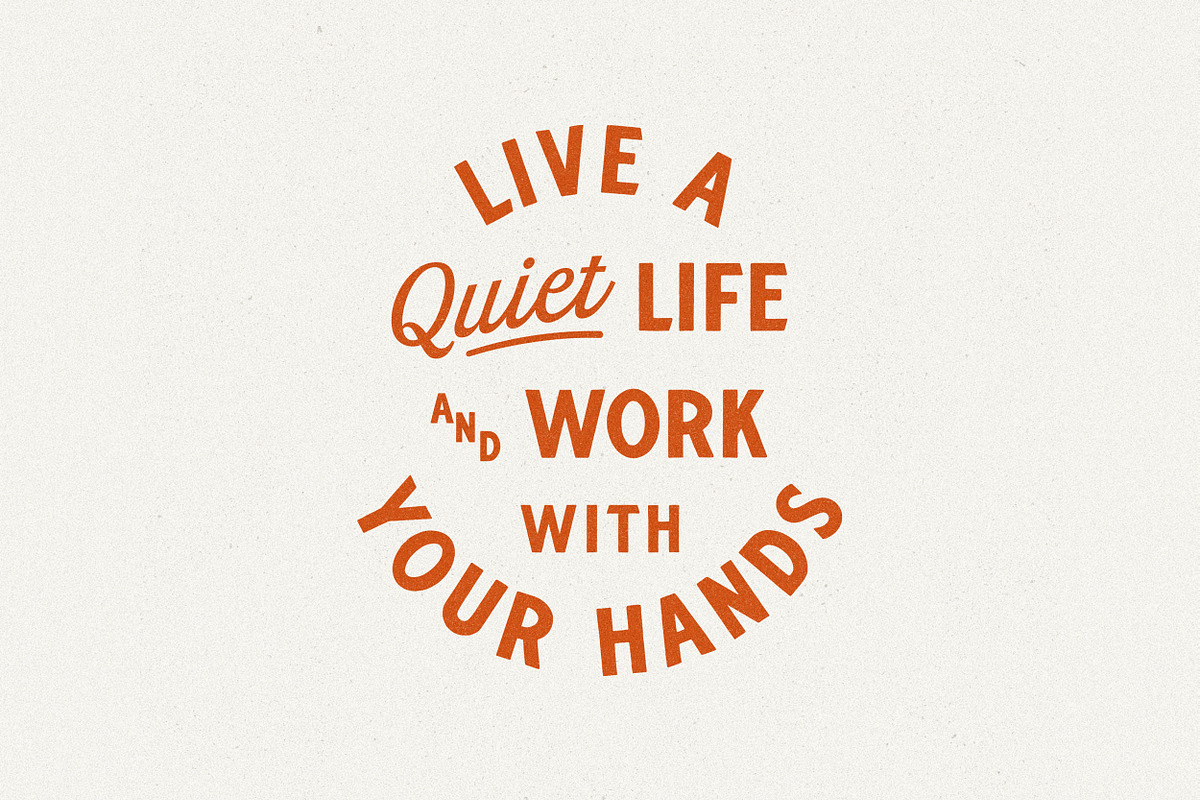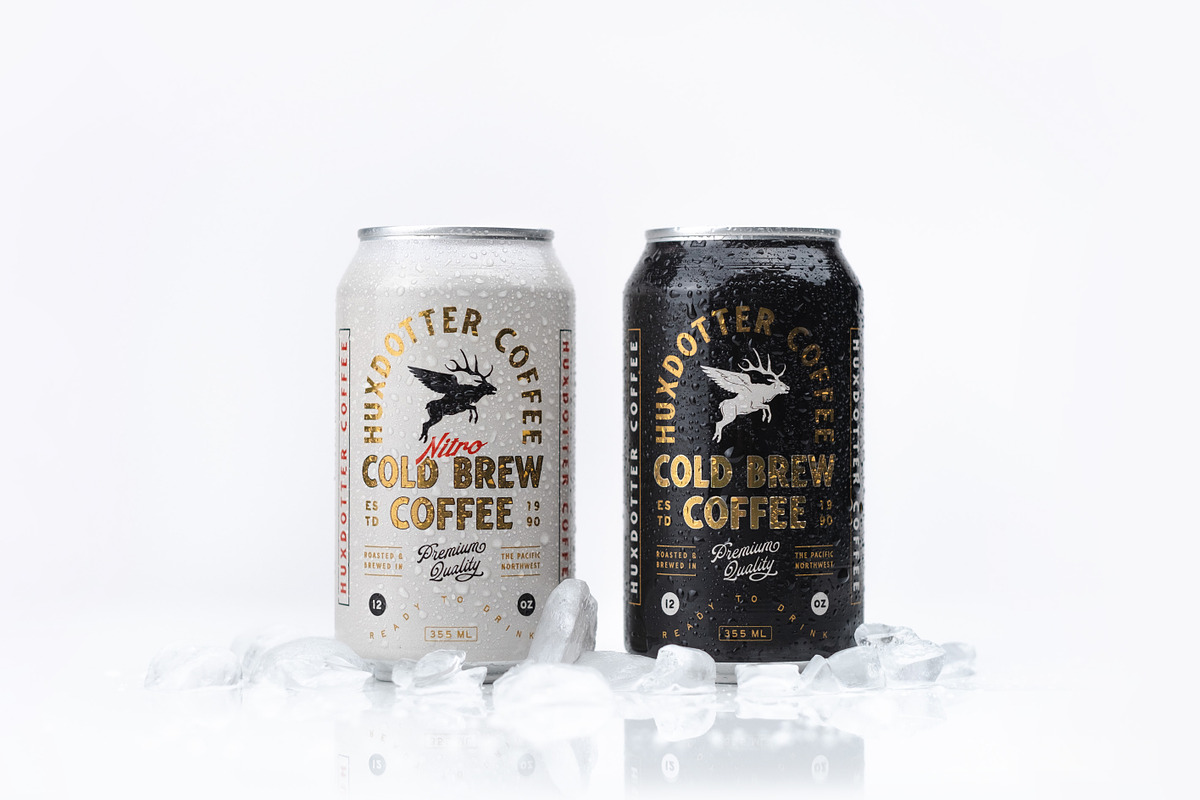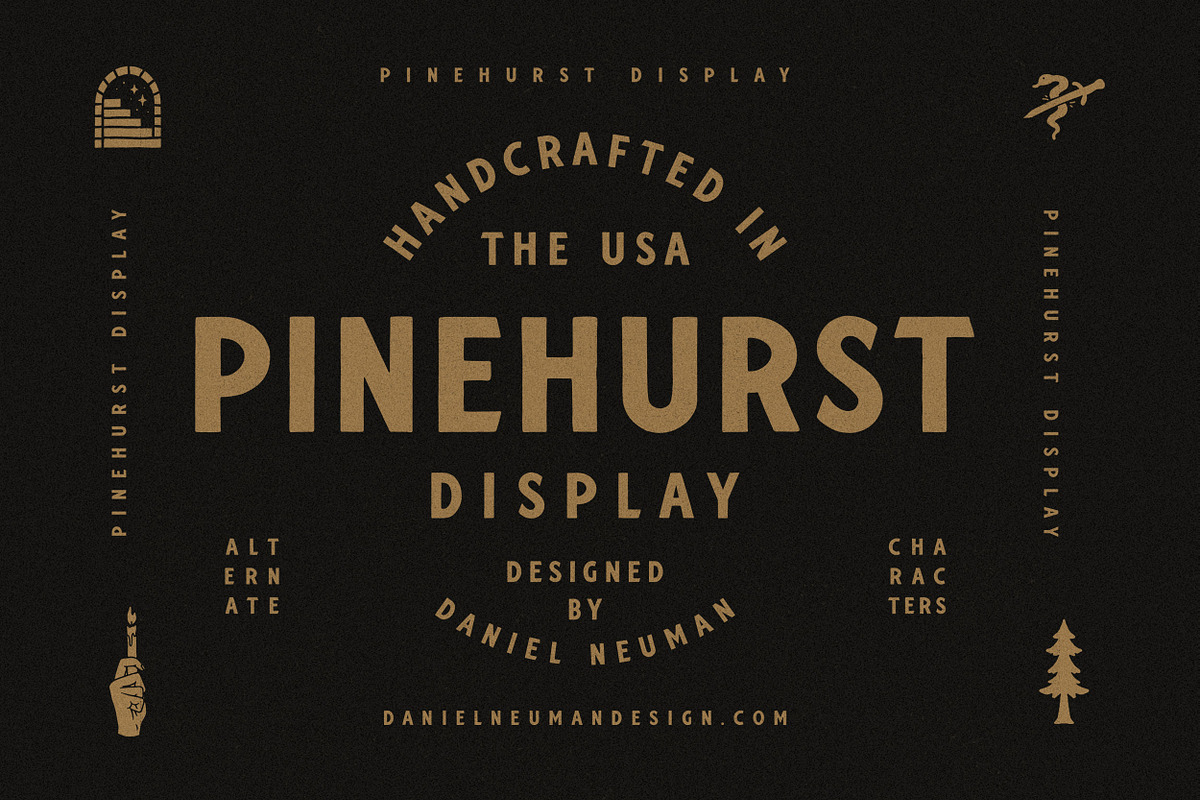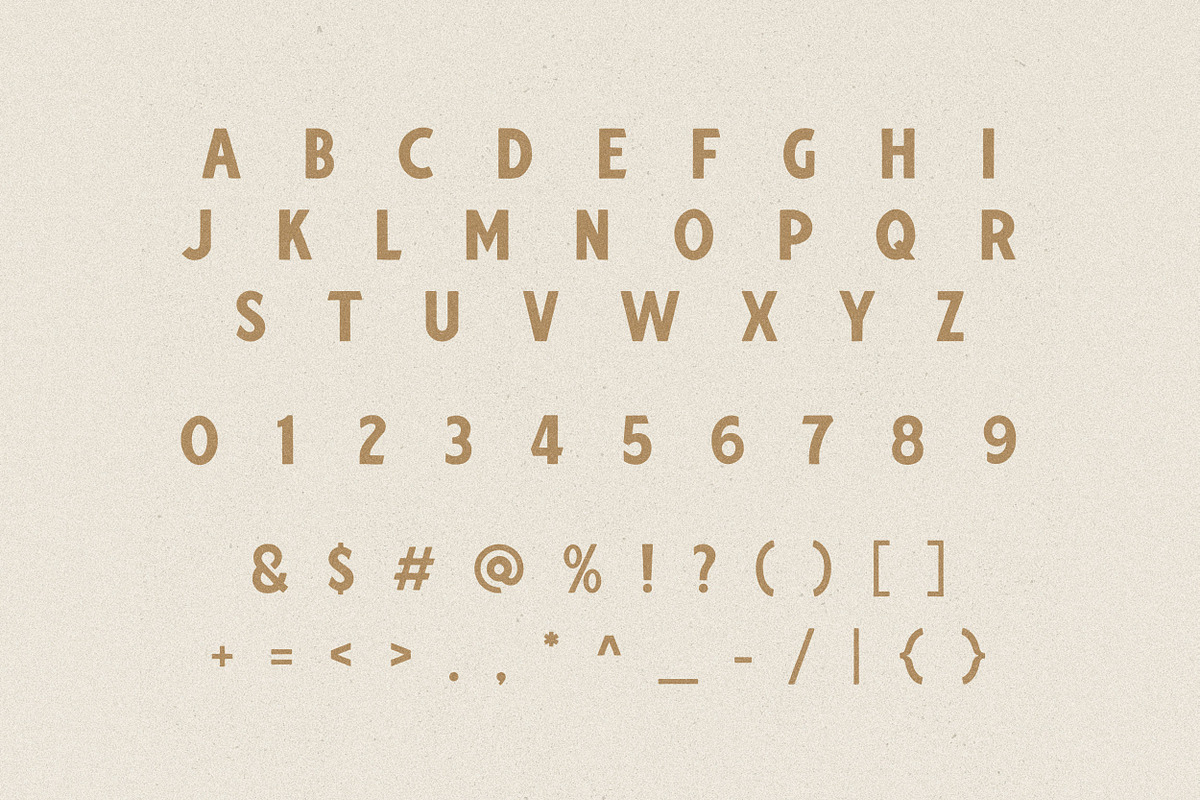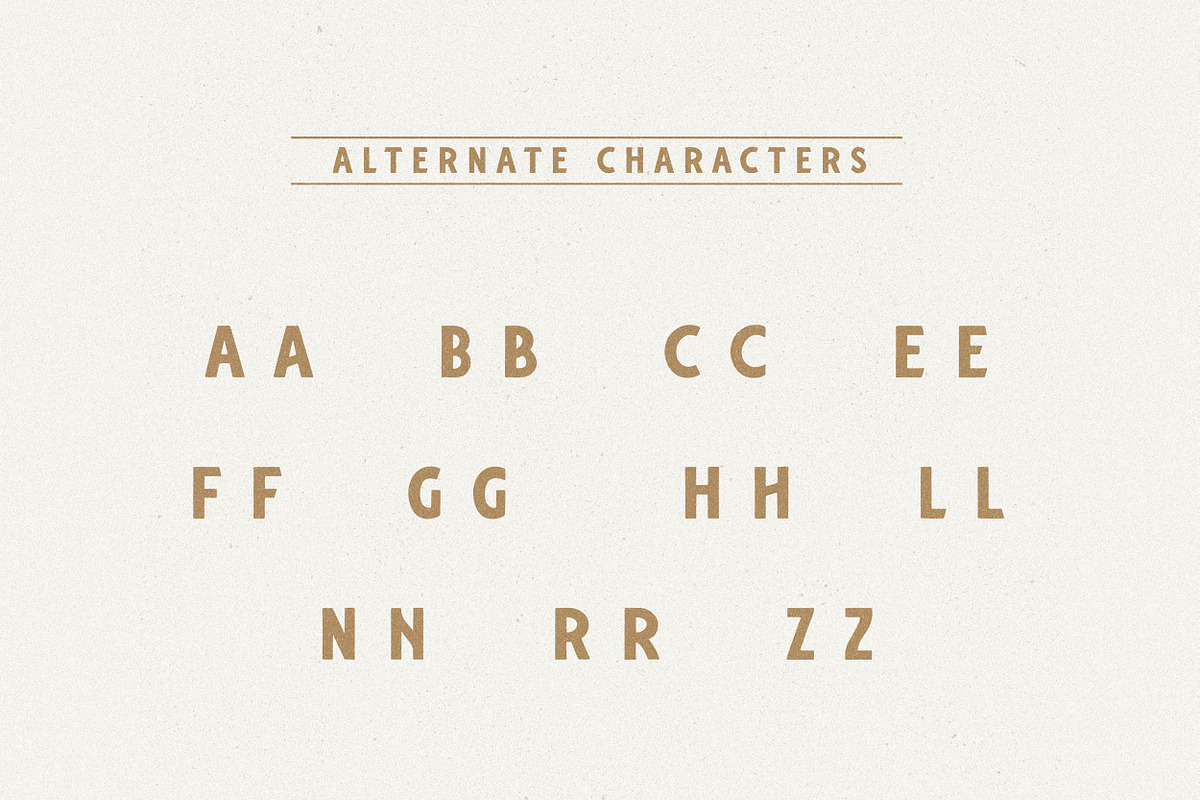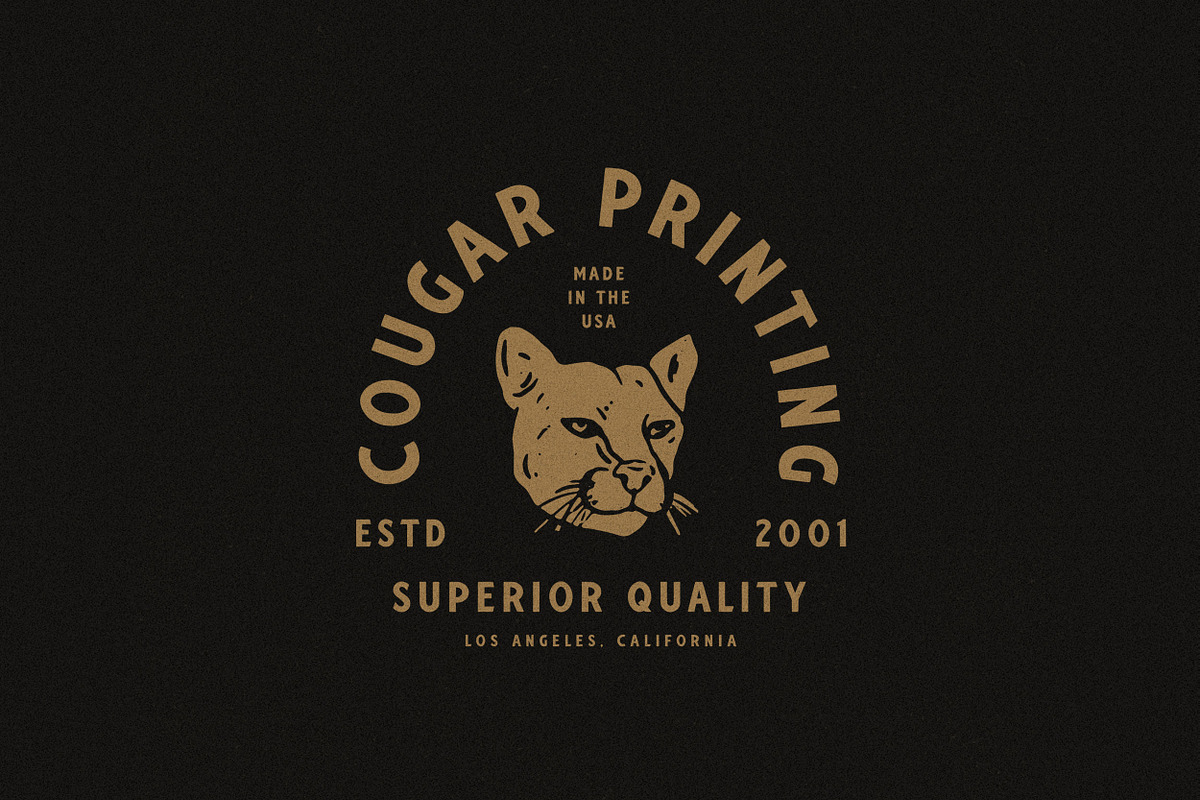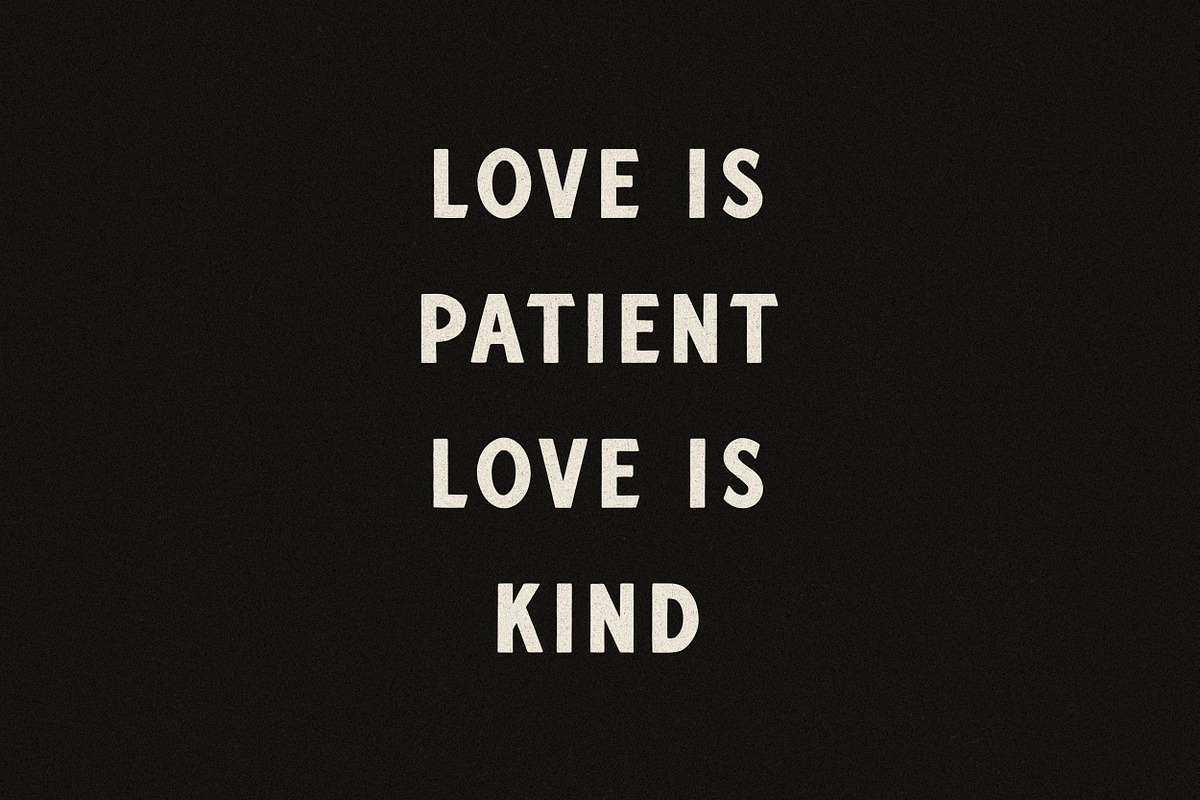
Pinehurst | Bold Display Typeface
Hand drawn and a little rugged this font is perfect for logos, labels, badges and more! 11 alternate characters are included.
Contains single-case A-Z, numbers 0-9 and basic punctuation.